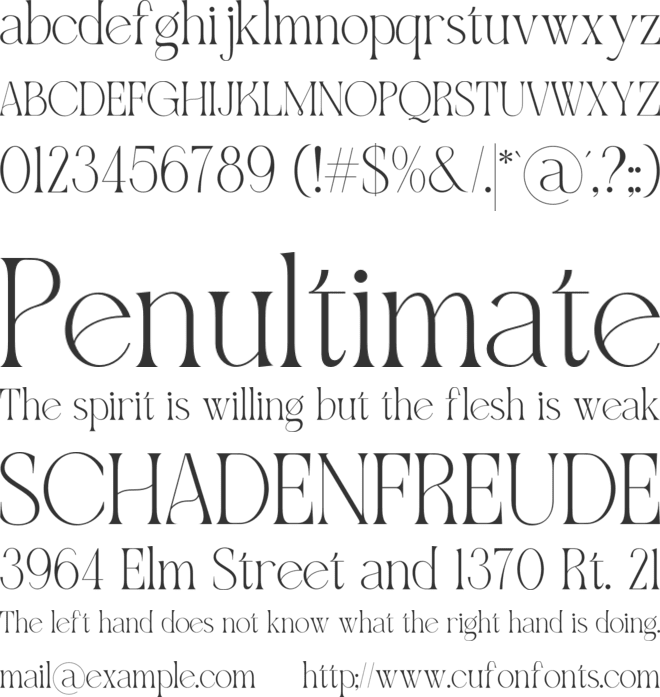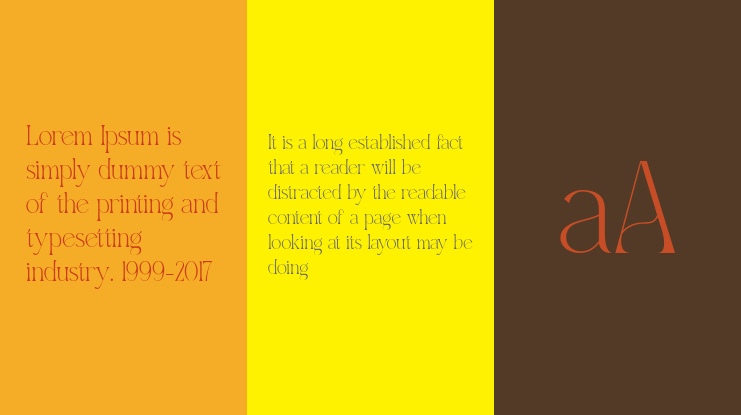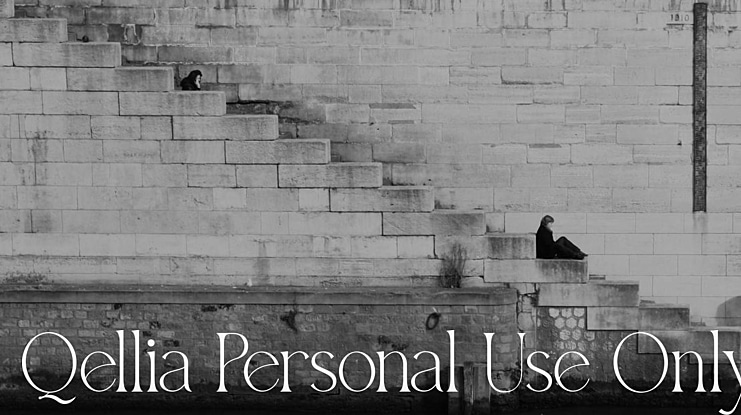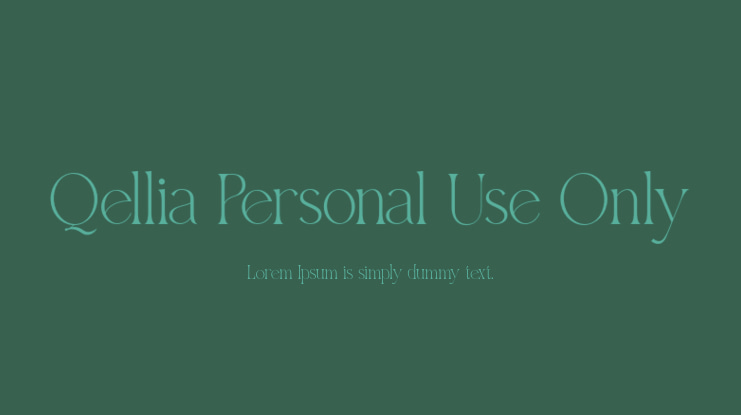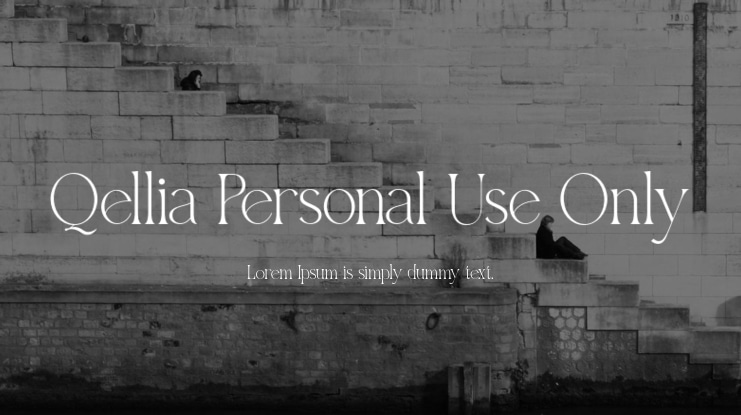
Qellia Personal Use Only Font
Qellia is a modern typeface with lots of style and creativity. The Qellia typeface is an exquisitely elegant svelte serif, with beautiful ligatures and unique alternate characters. The Qellia typeface is a sophisticated update on the bold old-style serifs, commonly known as soft-serve. The tall and slim nature of the Qellia typeface makes it very modern and classy. The Qellia typeface also has long stems which gives the font a striking yet contemporary nostalgic look. The Qellia typeface comes in two styles, Regular and Oblique.
The Qellia typeface comes with creative ligatures and unique alternative characters, these unique characters are great for creating custom modern feminine logo designs. The Qellia typeface also comes with multilingual support for languages such as: Danish, English, Finnish, French, German, German (Switzerland), Norwegian Bokmål, Norwegian Nynorsk, Portuguese, Spanish, Swedish, Swiss German.
The Qellia typeface has a unique and sophisticated design, this allows the typeface to cover a wide range of projects such as: branding, mastheads, magazines, feminine logos, facebook banners, wedding invitations, Instagram posts, websites, blog posts, pull quotes, editorials, product packaging, trendy social media posts, advertisements and much more.